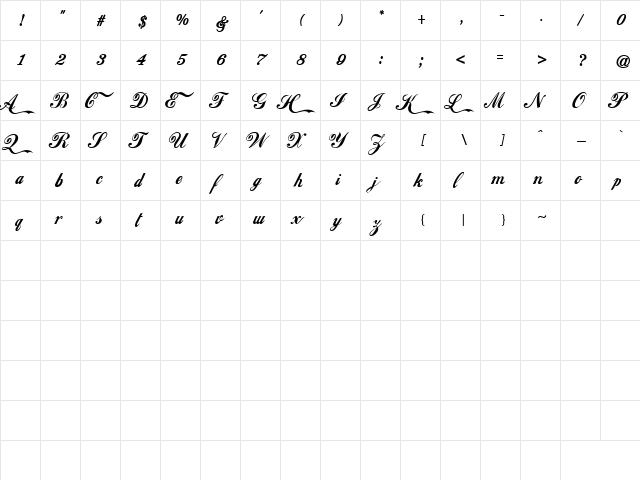
Coca Cola ii Regular
Design Context for Coca Cola ii Typeface
Coca Cola ii is a composed and adaptable typeface that performs quietly and consistently across a wide range of design contexts.